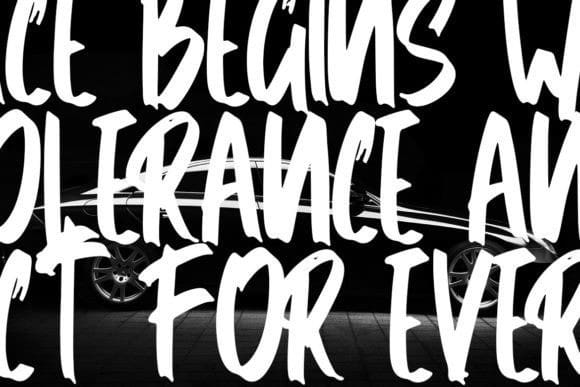
Bozeus Brush Font
Bozeus Brush Font is a cool and modern brush display font. It looks beautiful on a variety of designs requiring a personalized style, such as wedding invitations, thank you cards, weddings, greeting cards, logos, and so on.